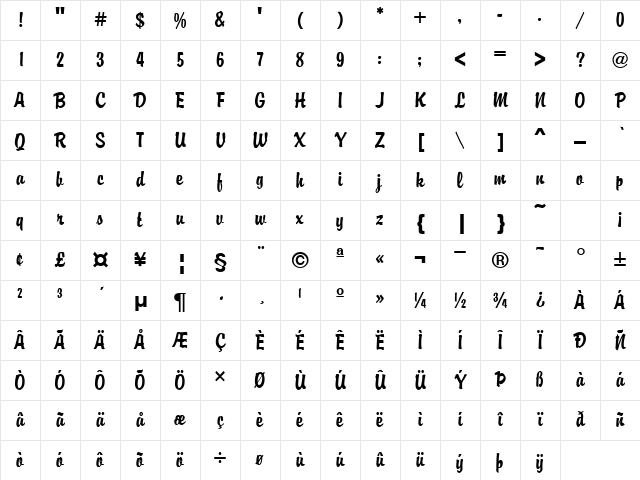
Complete PT Dog-ear Normal glyph index. Displaying only characters natively supported by PT Dog-ear Normal font.
PT Dog-ear is a composed and adaptable typeface that performs quietly and consistently across a wide range of design contexts.